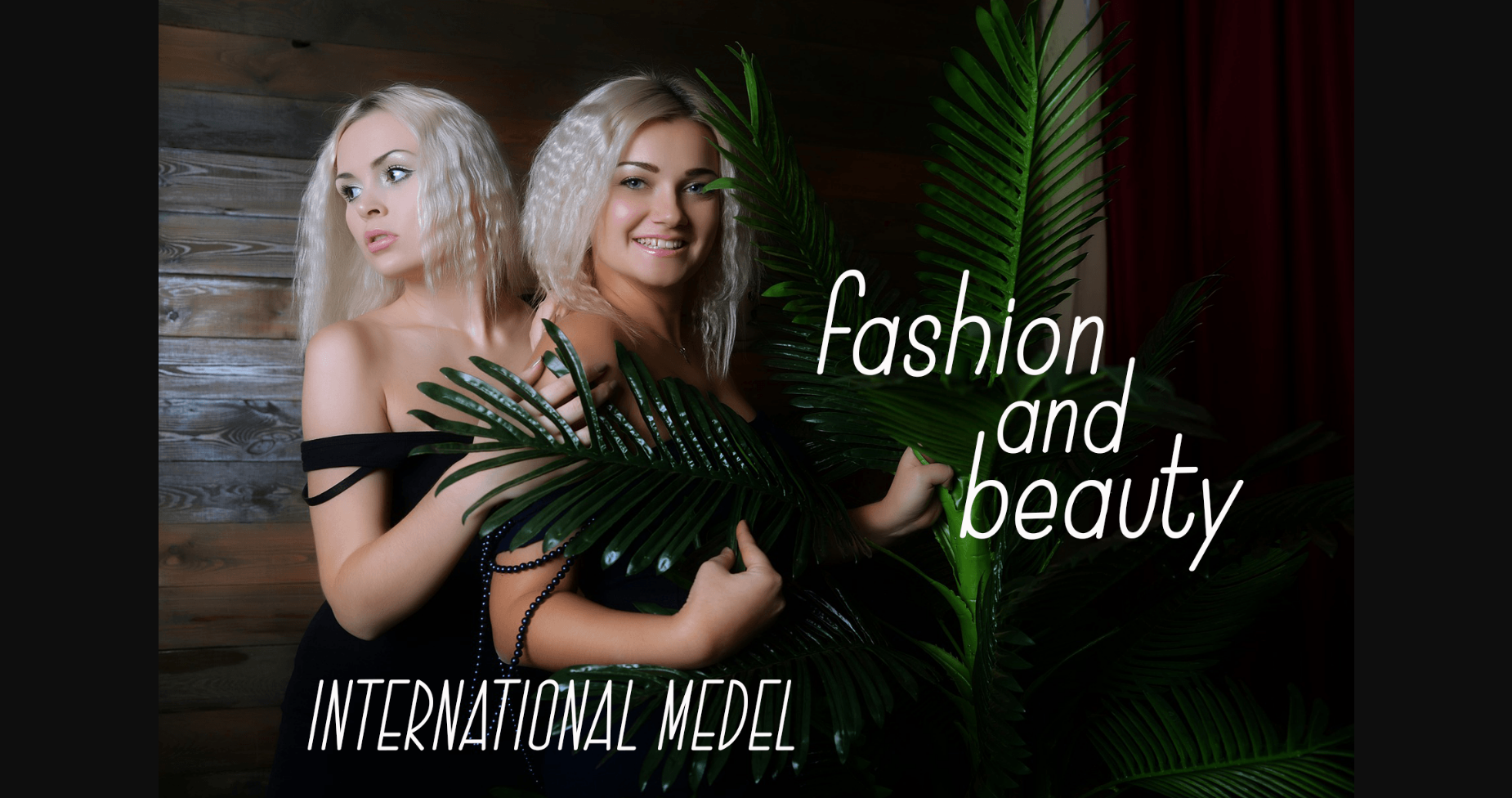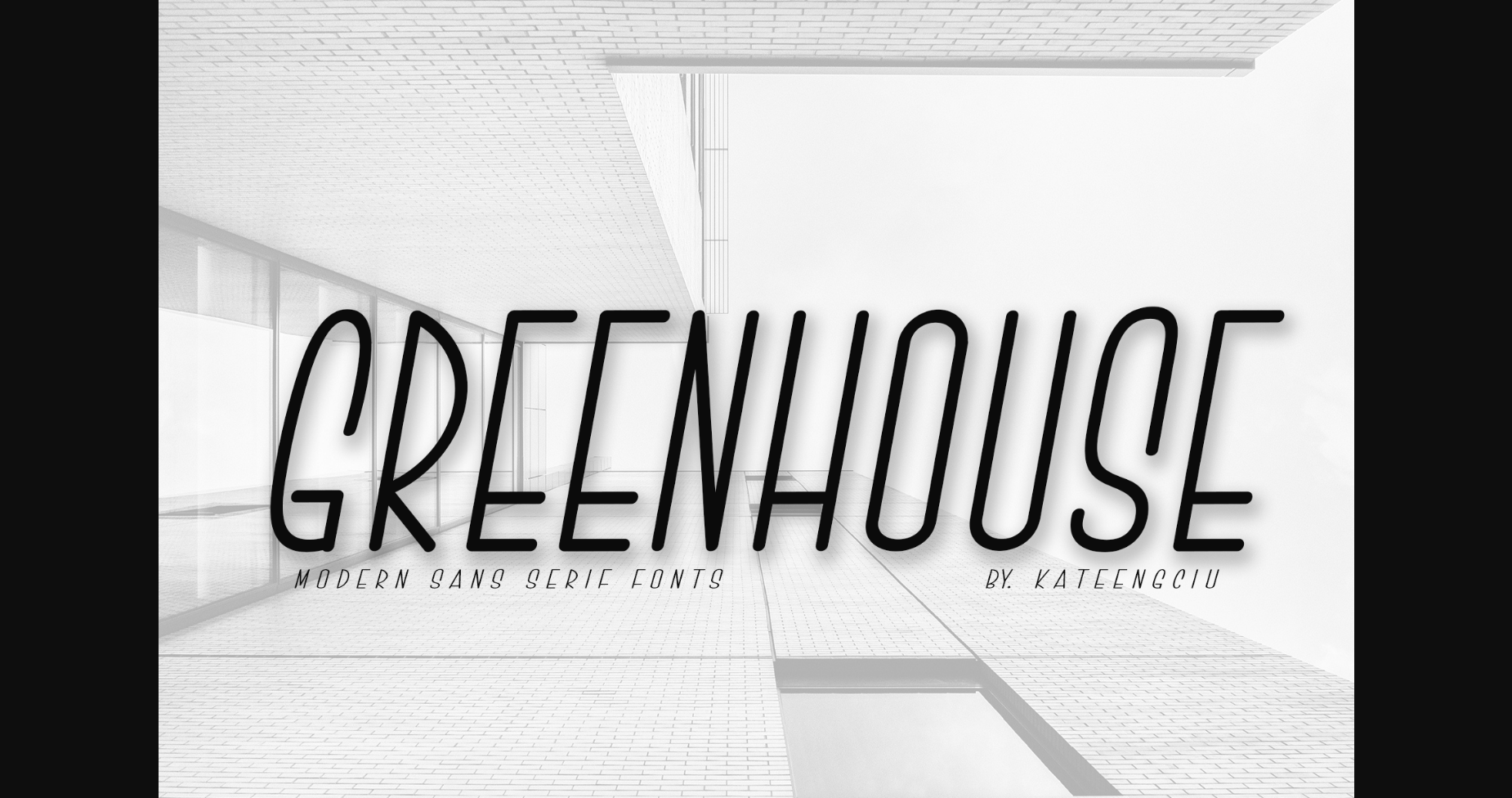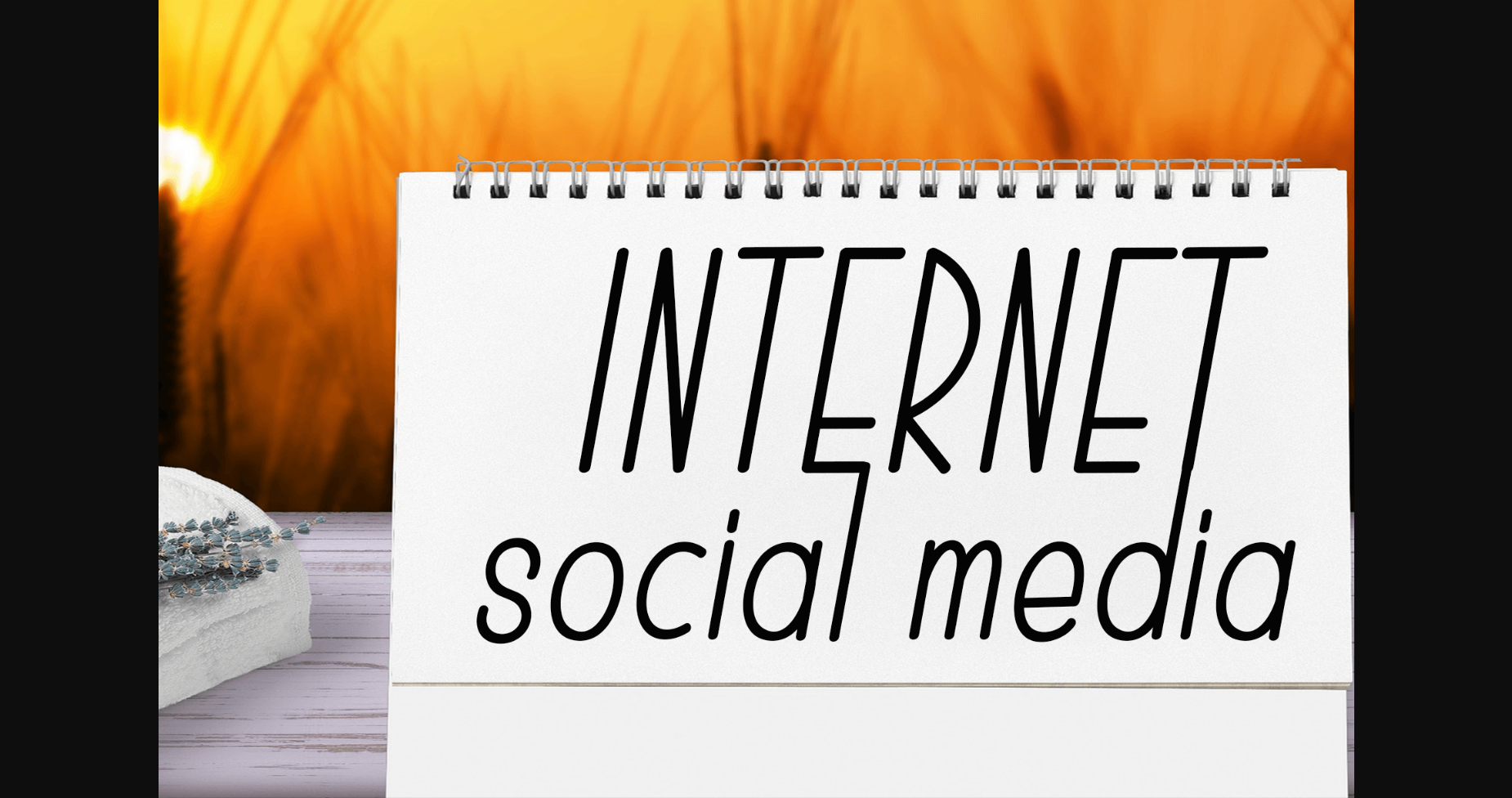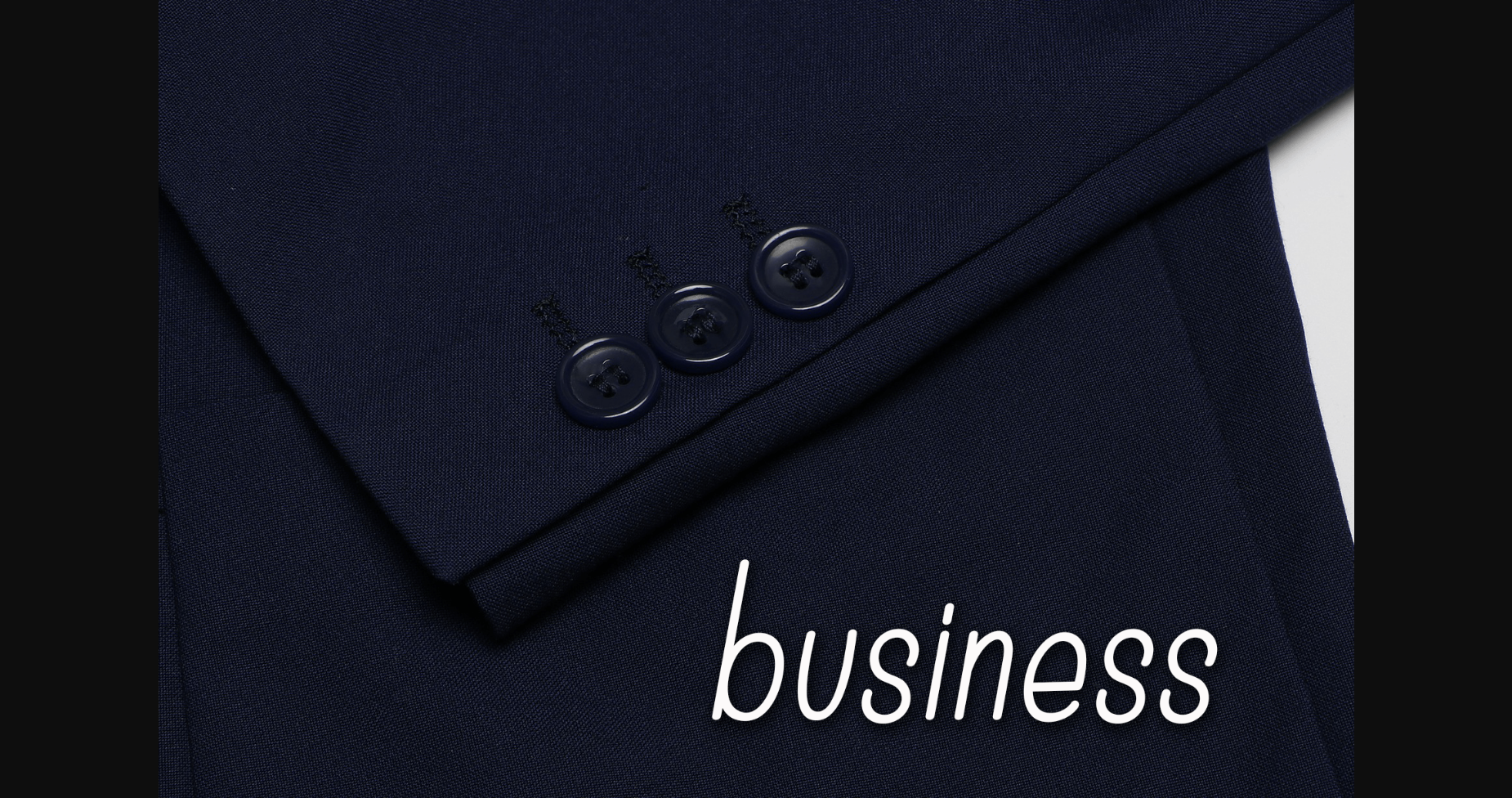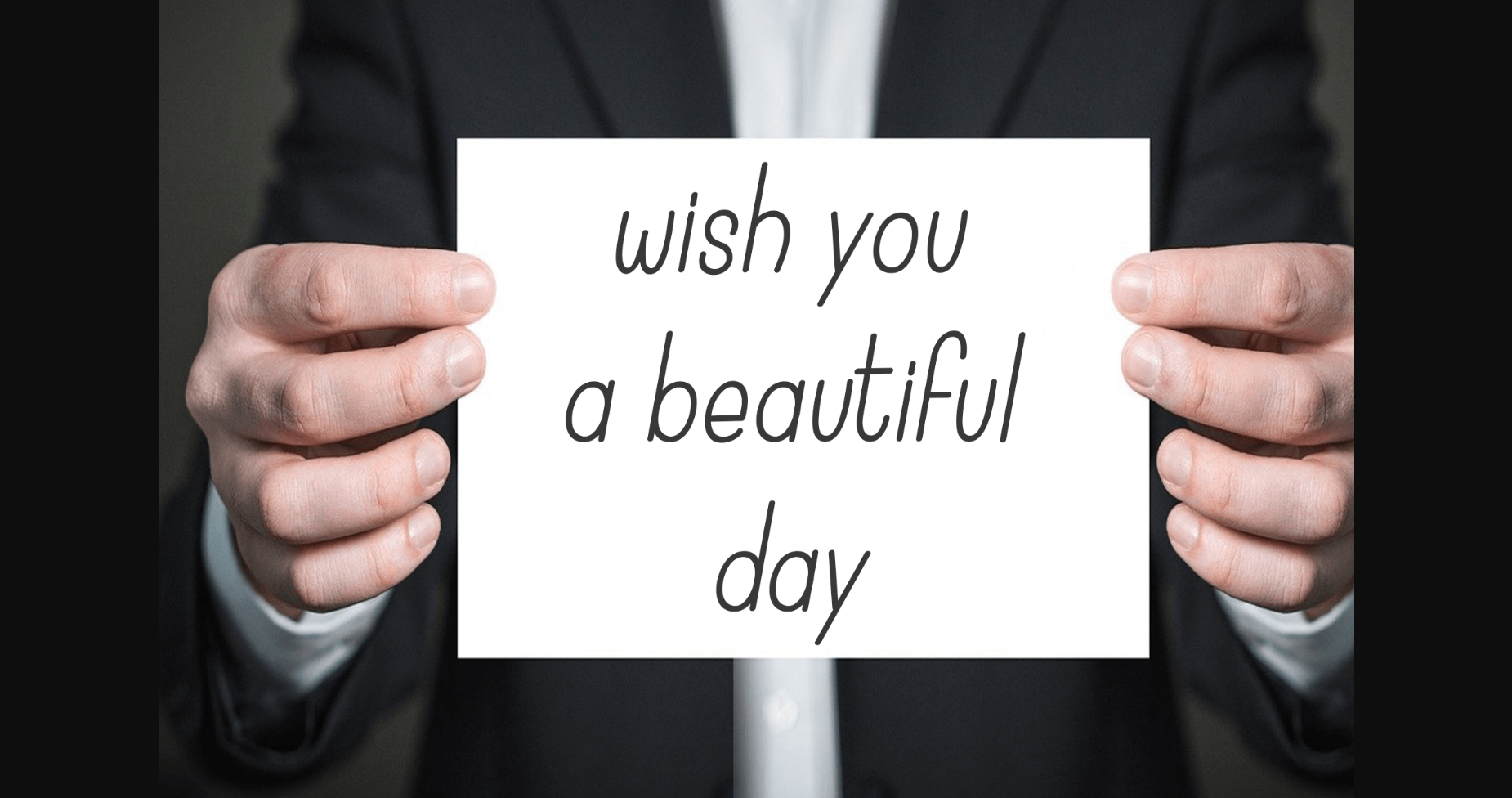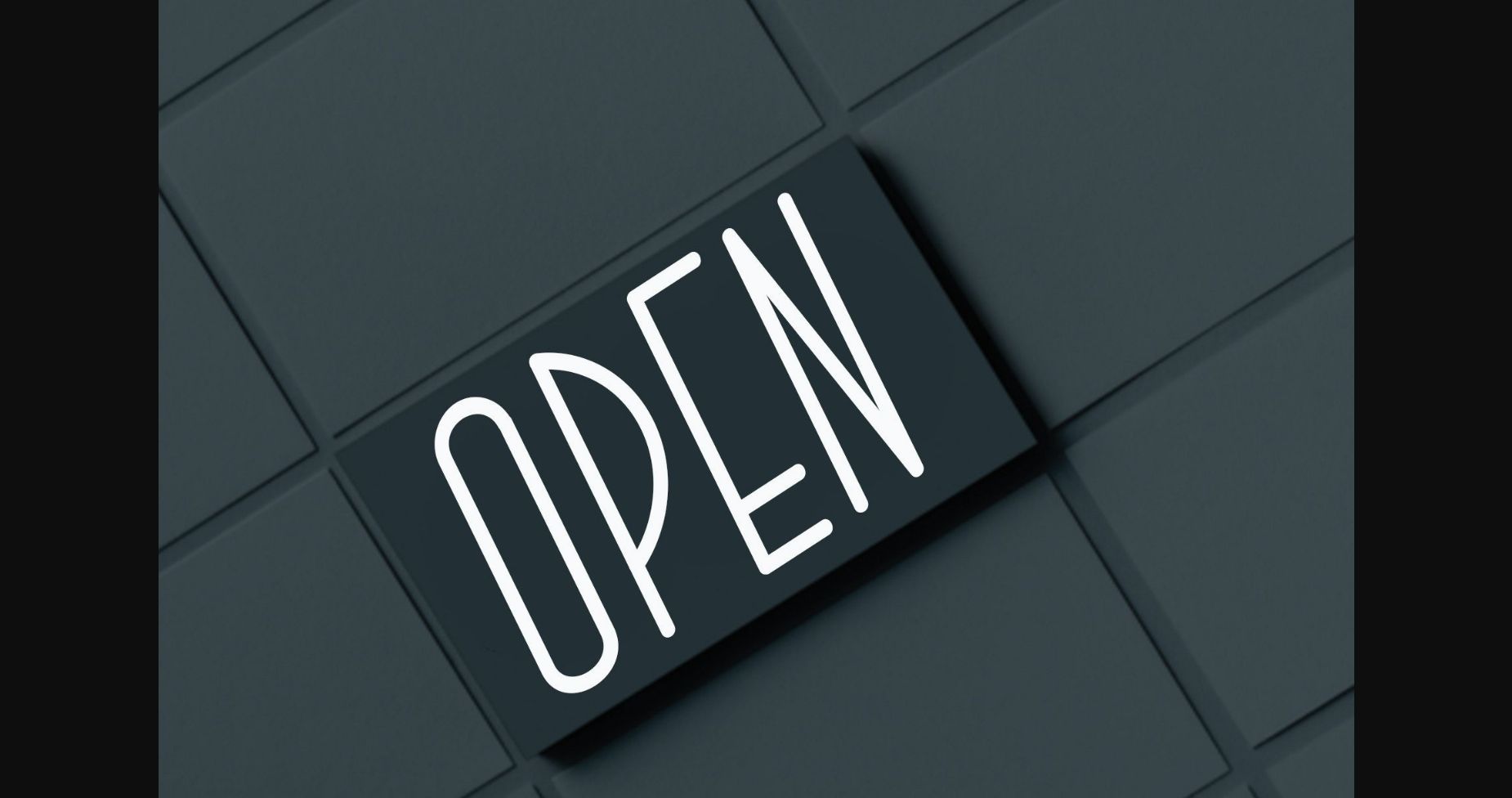
Greenhouse Font
About Greenhouse Font
Greenhouse is a magical sans serif font carefully created to give a touch of elegance to your designs. Whether you’re looking for fonts for Instagram or calligraphy scripts for DIY projects, this font will turn any creative idea into a true piece of art!